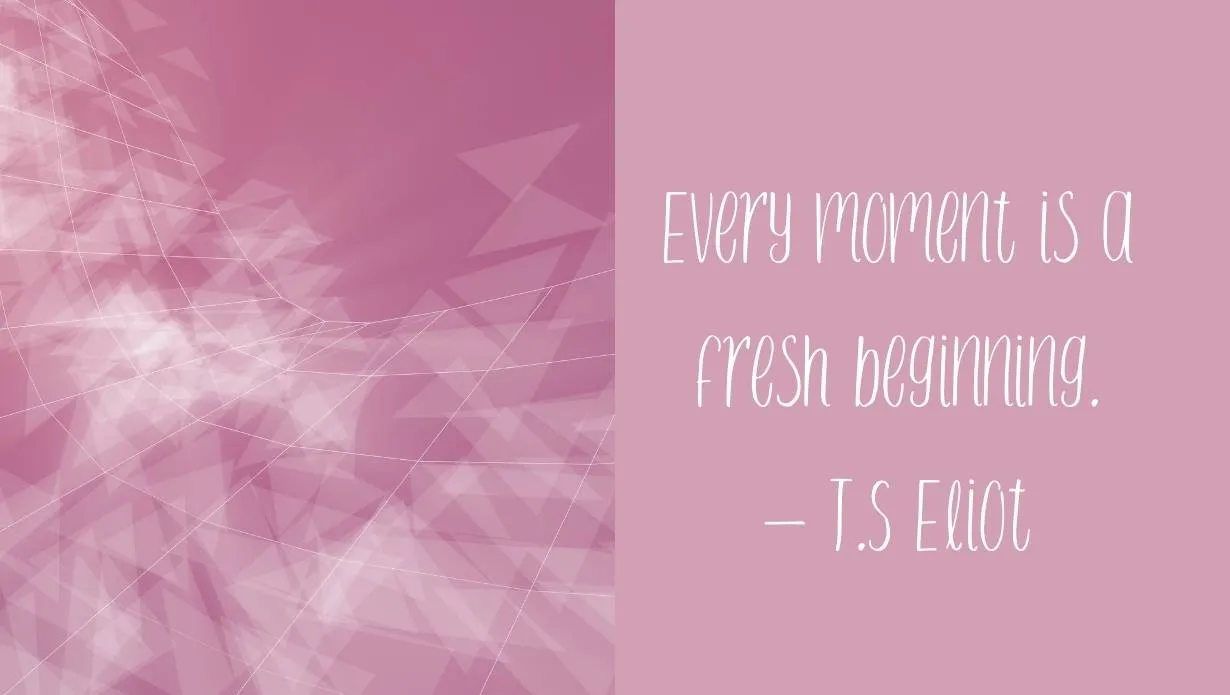
We are presenting a new amazing eye-catching font style design which is known as Foxhole Font. This font style design looks like someone has made it by hand. The font style design was designed by Ian Barnard. Ian Barnard is a famous designer who is famous for his work in design font style.
Foxhole Font Family
This font style design falls under the category of the Handwritten typeface. The elegant font style design can be used for any type of design because of attractiveness in its design.